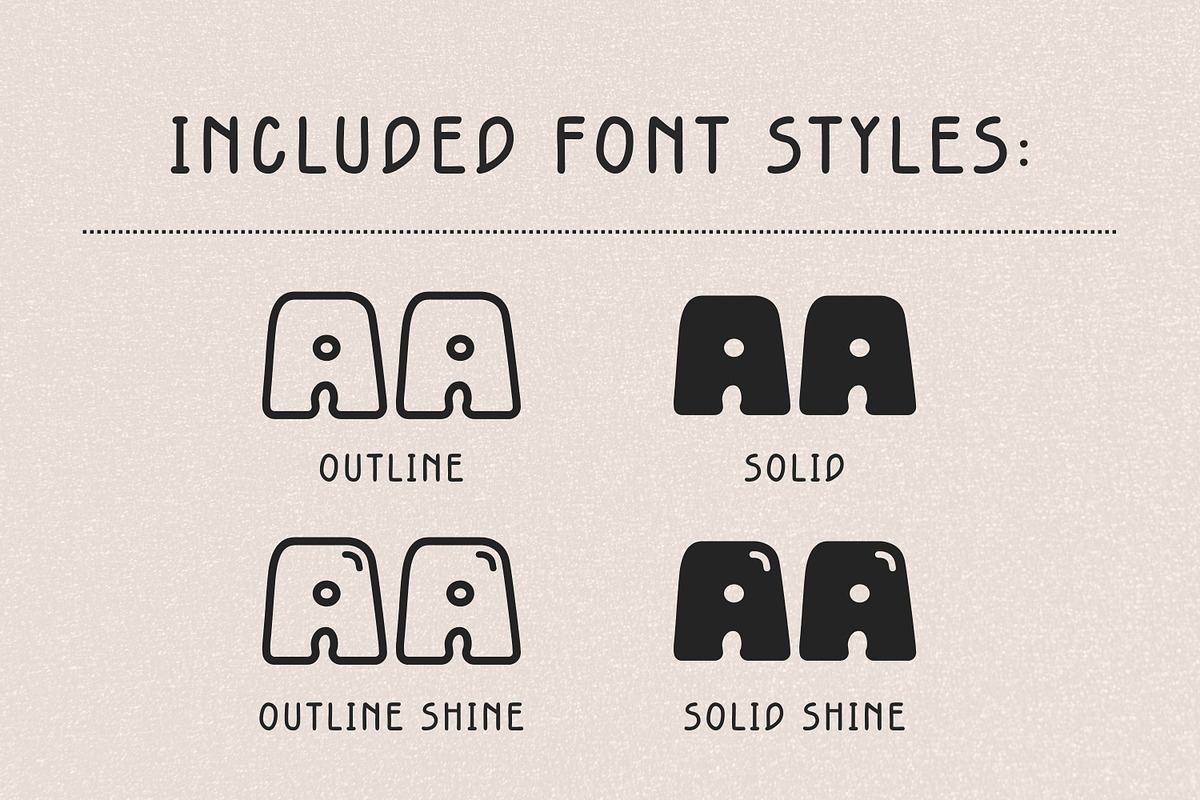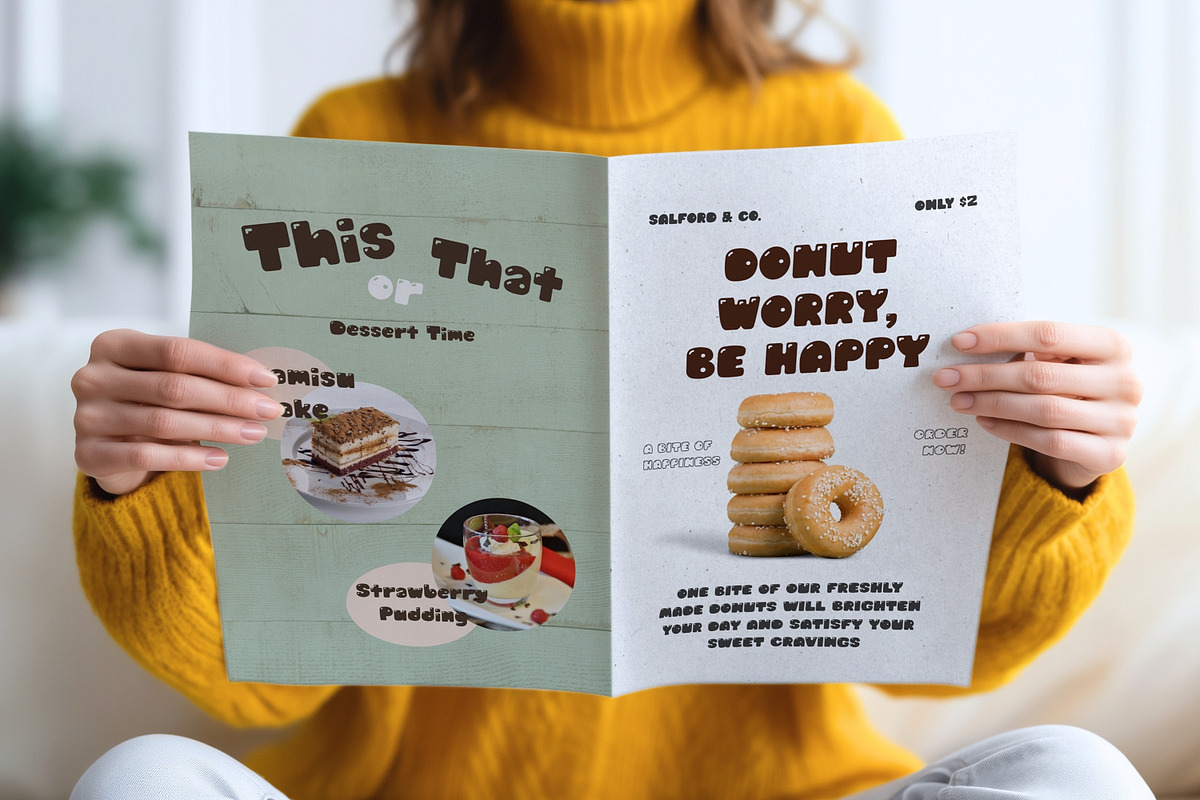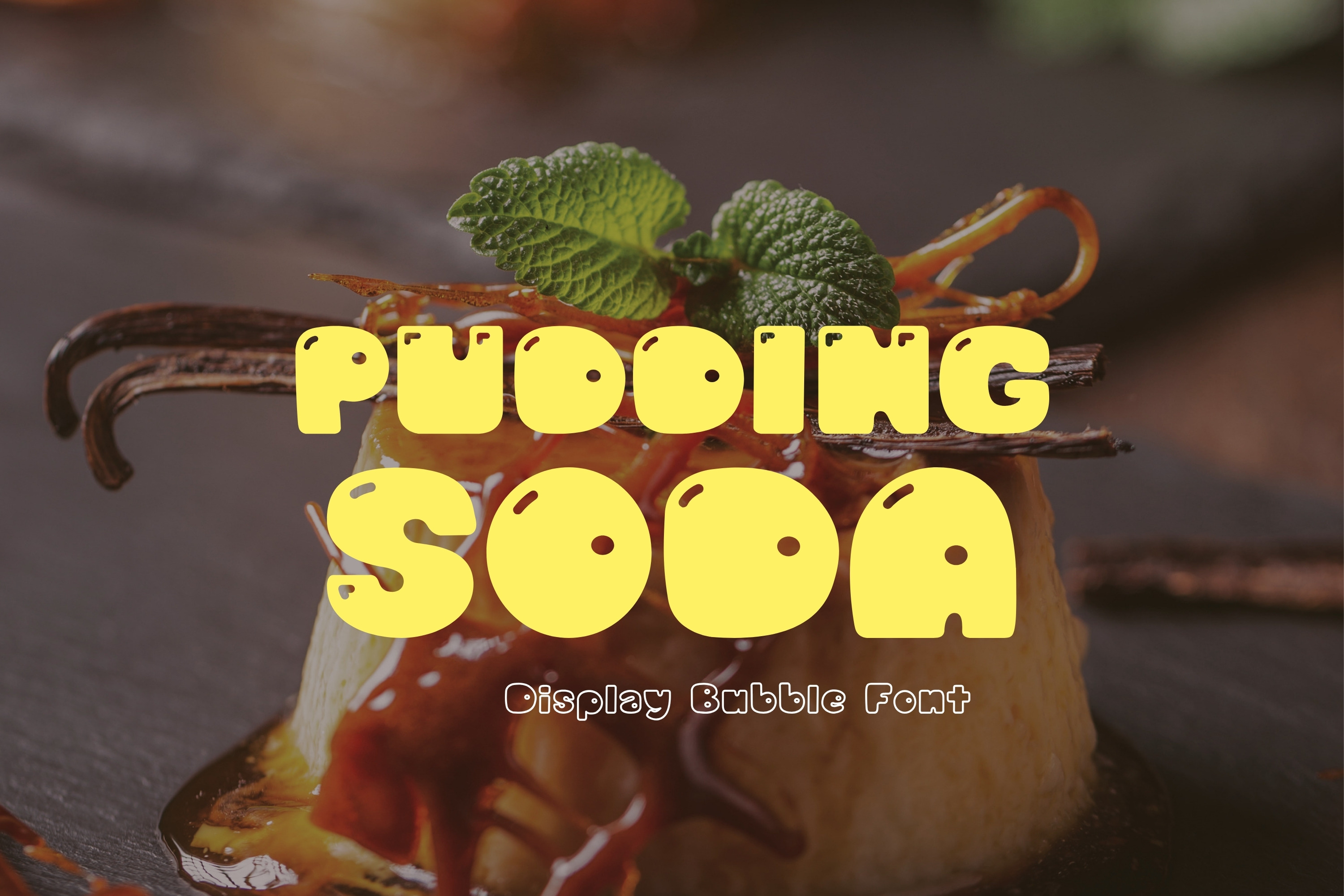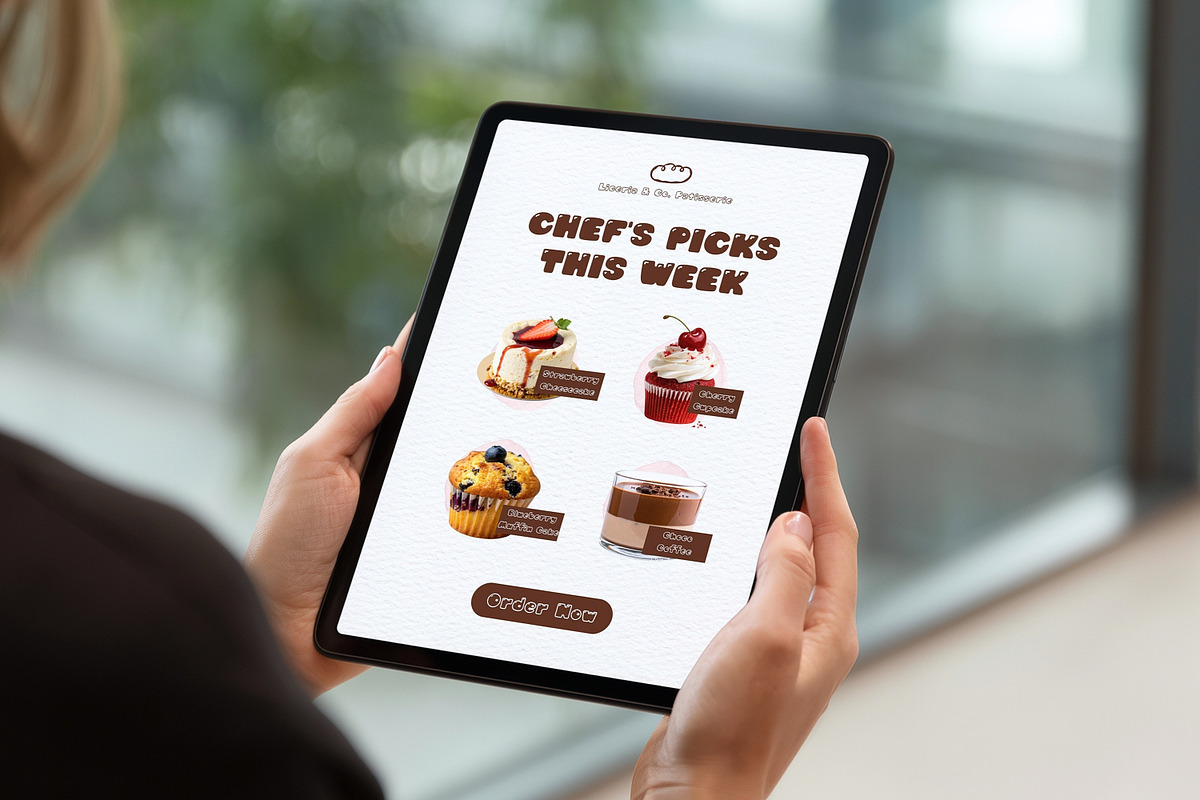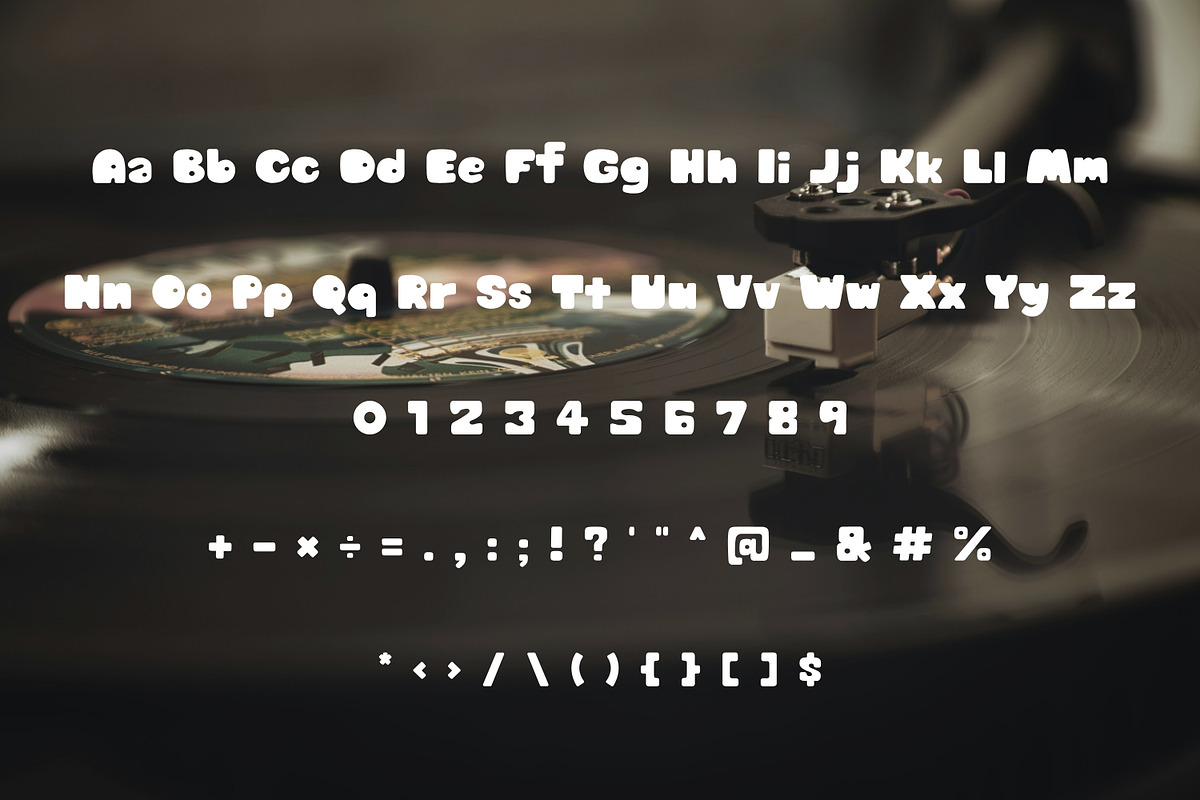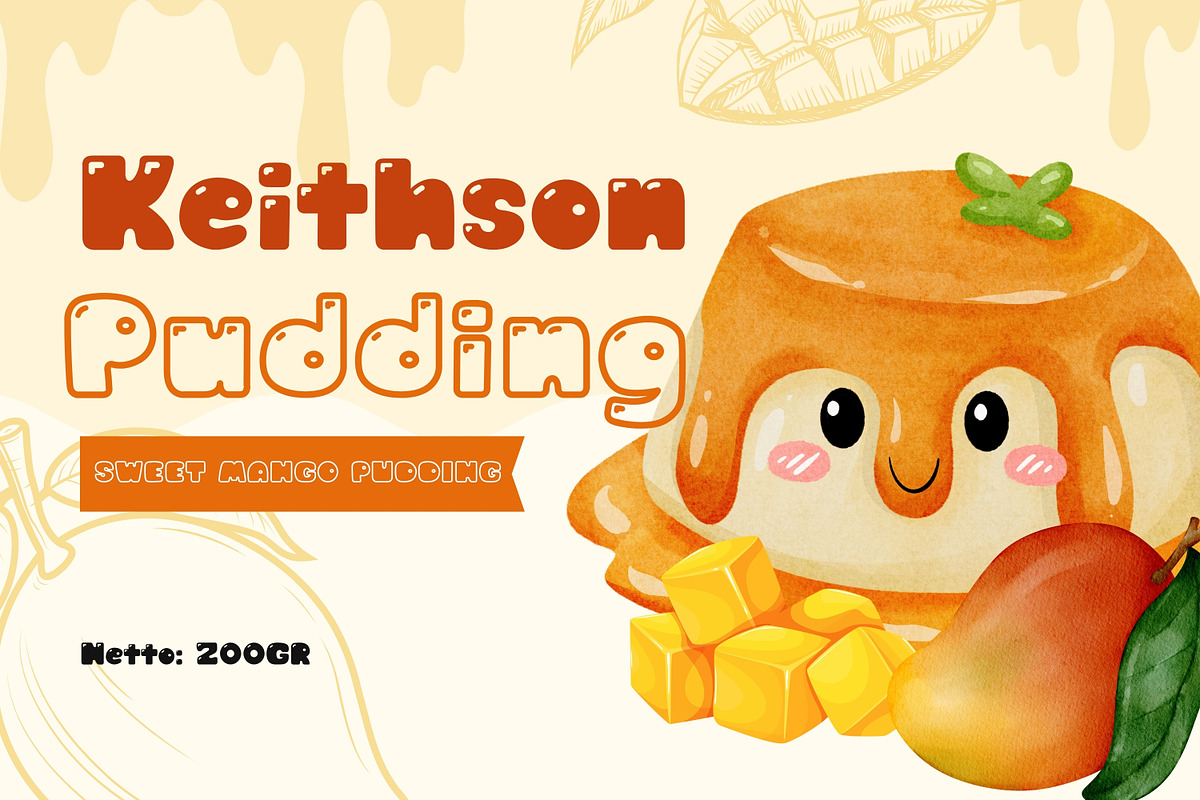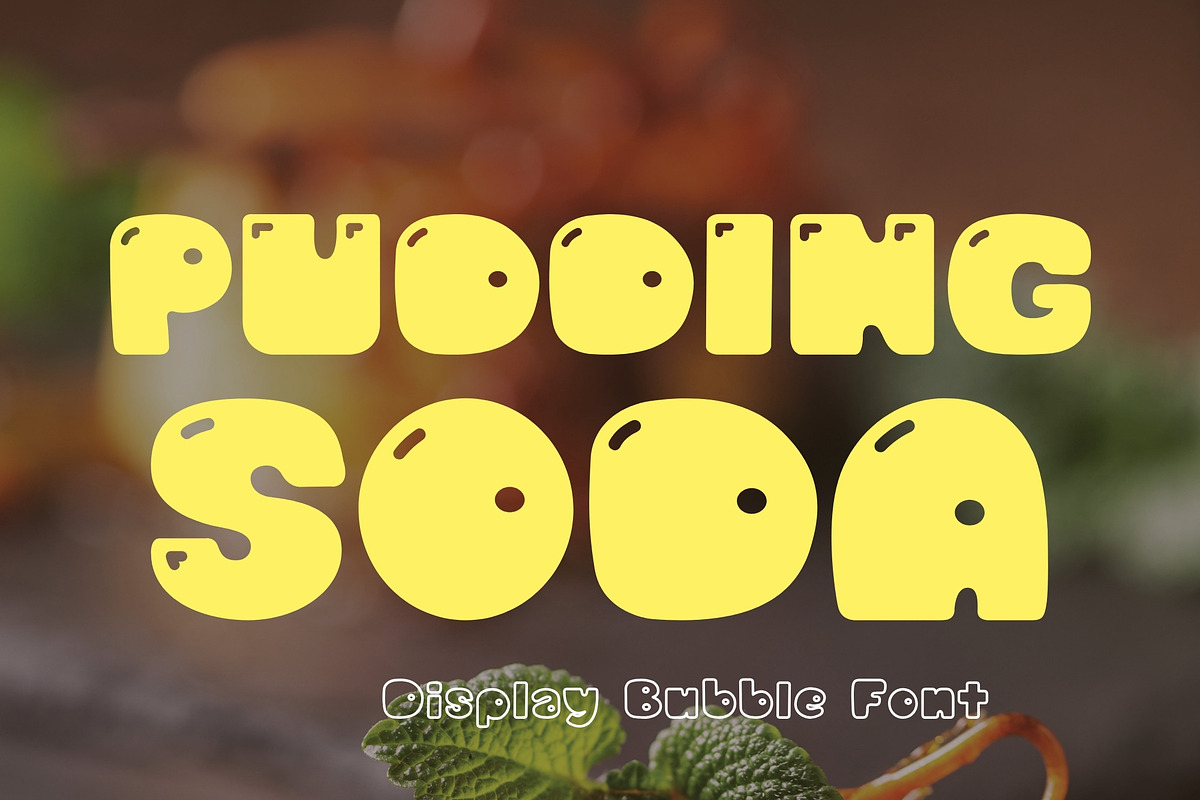
Retro Display Font - Pudding Soda
✨ Bring a scoop of sweetness and a pop of fun to your creative projects with "Pudding Soda"—the ultimate Display Bubble Font!Inspired by cozy cafes, fluffy desserts, and retro Japanese soda shops, this font features thick, chunky letterforms packed with playful personality. Each character is designed with cute "glossy reflection" details, making your text look instantly 3D, juicy, and irresistible.It’s the perfect typeface for crafters, digital artists, and small business owners looking to add a friendly, eye-catching vibe to their branding.